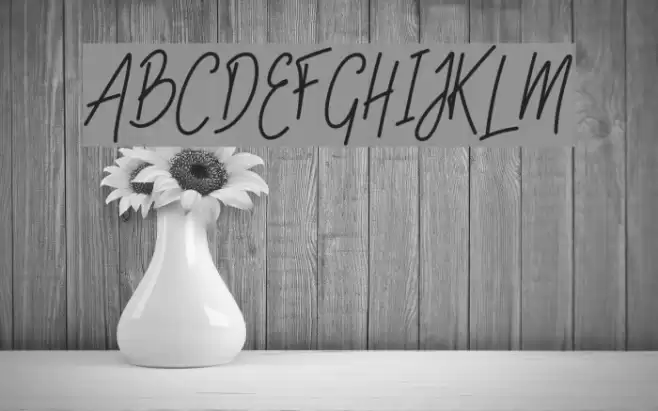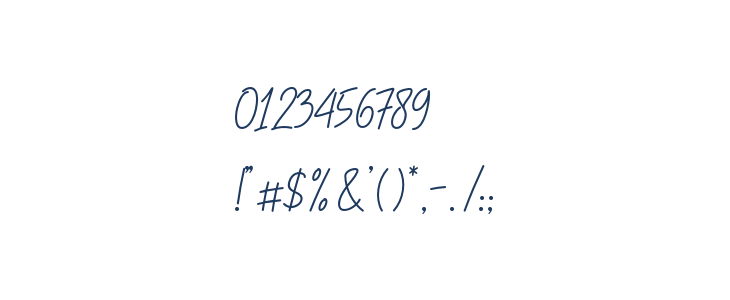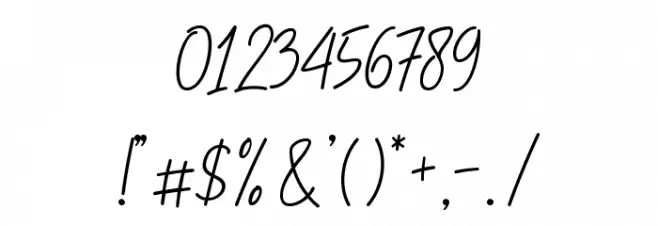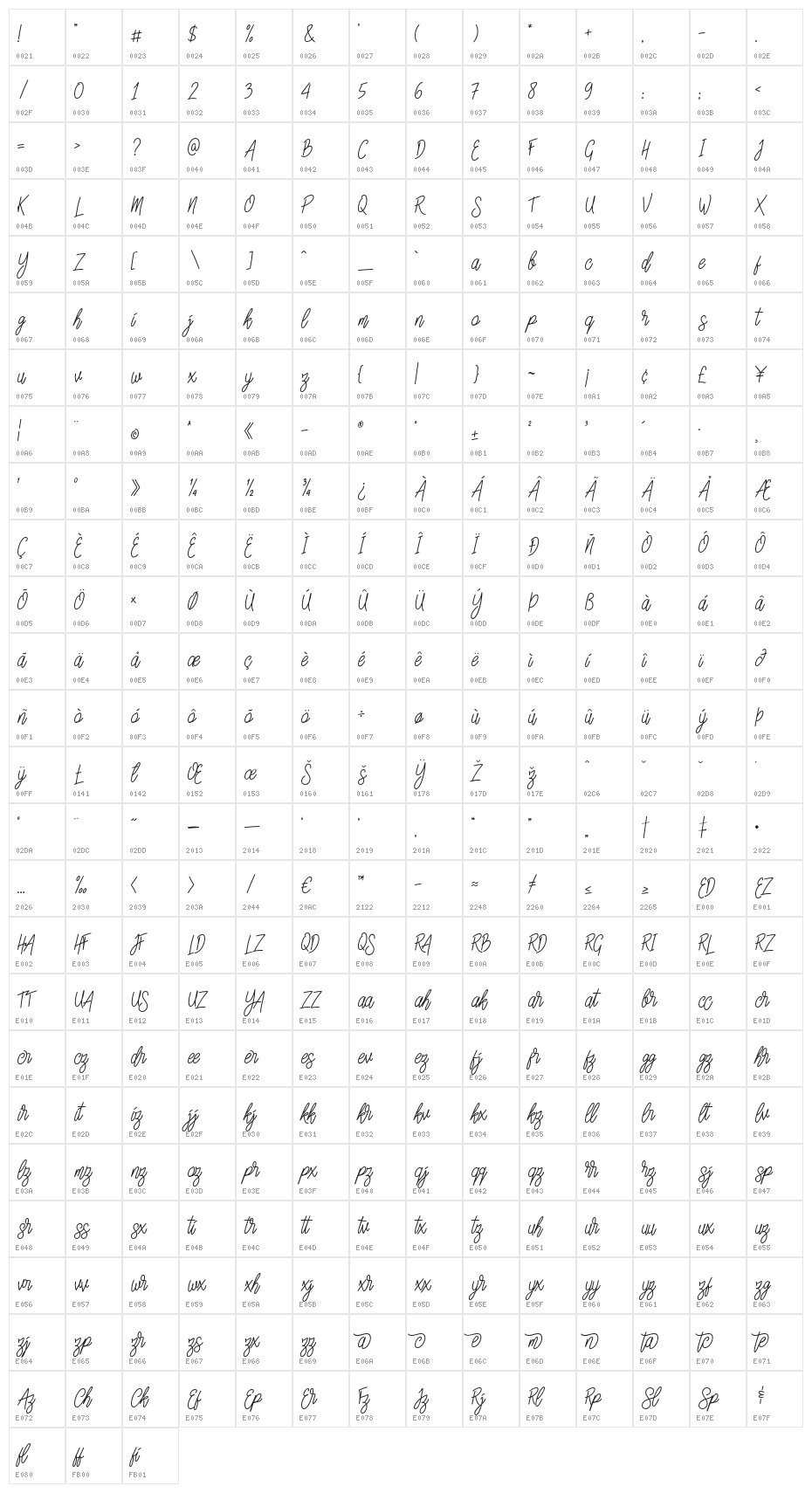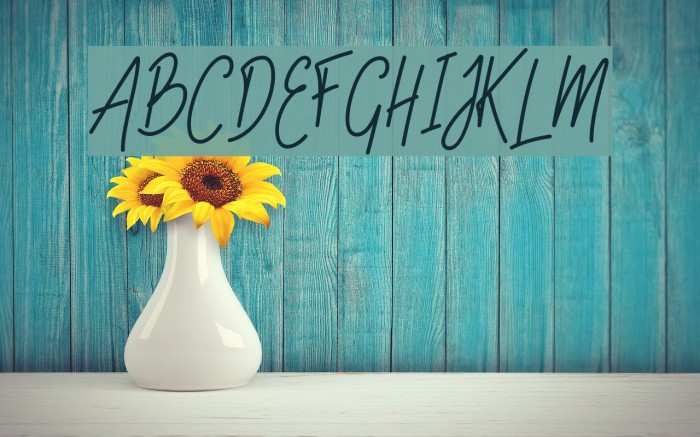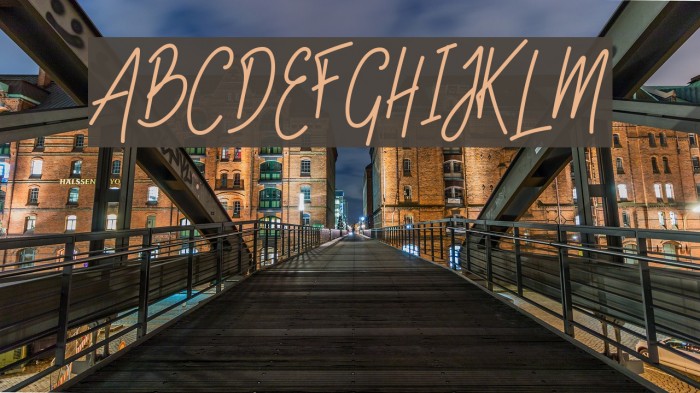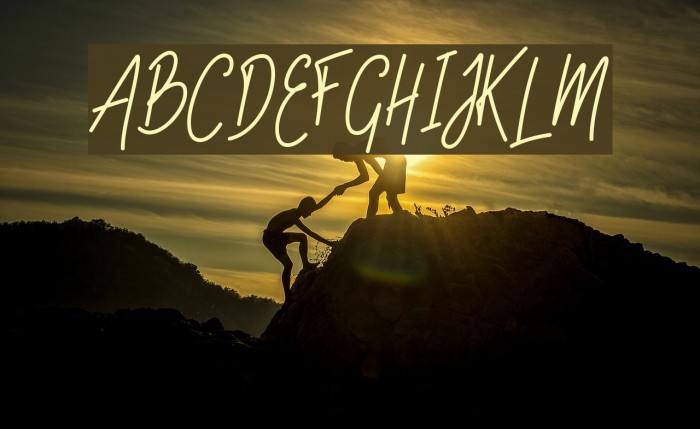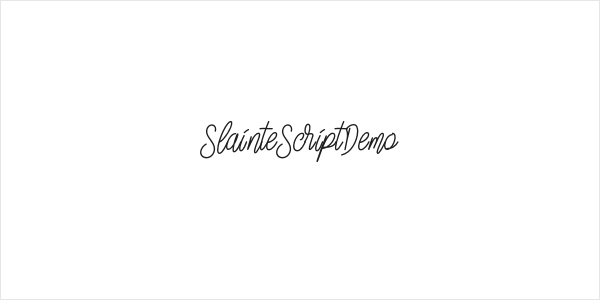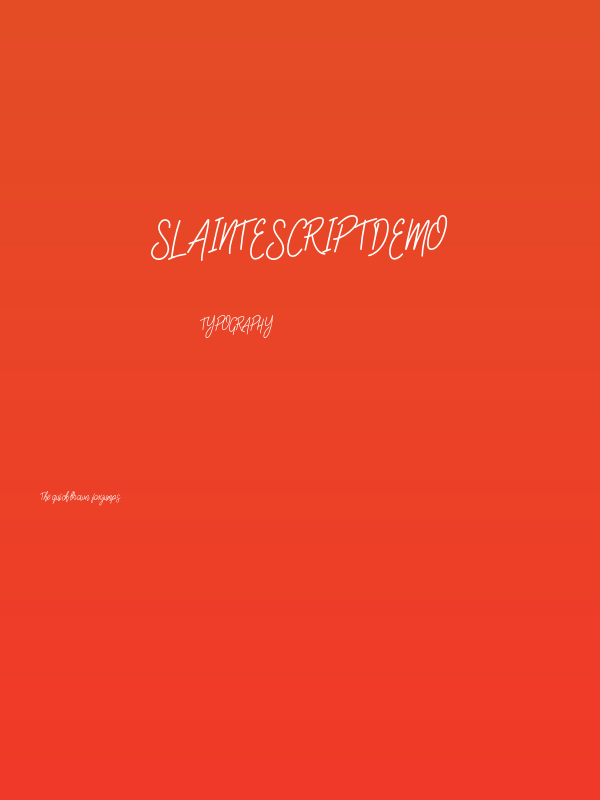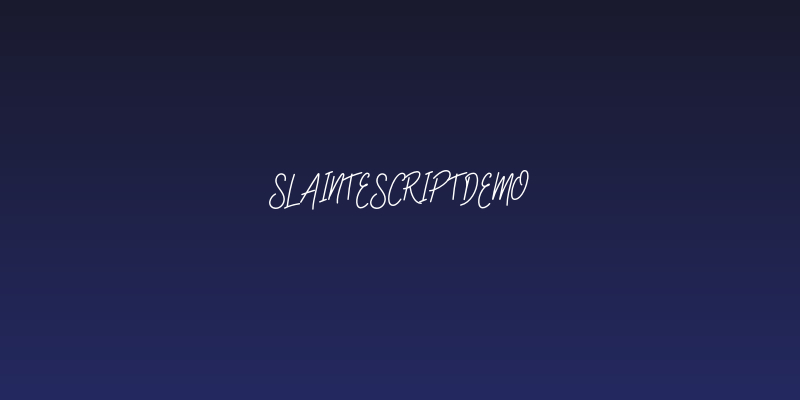
SlainteScriptDemo Font
SlainteScriptDemo Description
This font exudes a lively and dynamic character with its flowing, cursive style. The letters are elegantly connected, creating a sense of movement and fluidity. The uppercase letters are bold and slightly slanted, giving them a distinctive presence, while the lowercase letters maintain a consistent rhythm with their smooth curves. The numerals are clear and legible, matching the overall script style. Special characters are thoughtfully designed to blend seamlessly with the alphabet, enhancing the font's versatility. This script font is perfect for adding a personal touch to any project, offering both elegance and readability.
A lively, cursive script font with elegant, connected letters and a dynamic flow from Uncategorized fonts.
- Proposed Projects: Ideal for wedding invitations, greeting cards, branding, and logo design, where a personal and elegant touch is desired.
- Use Case: Logos, Invitations, Greeting Cards